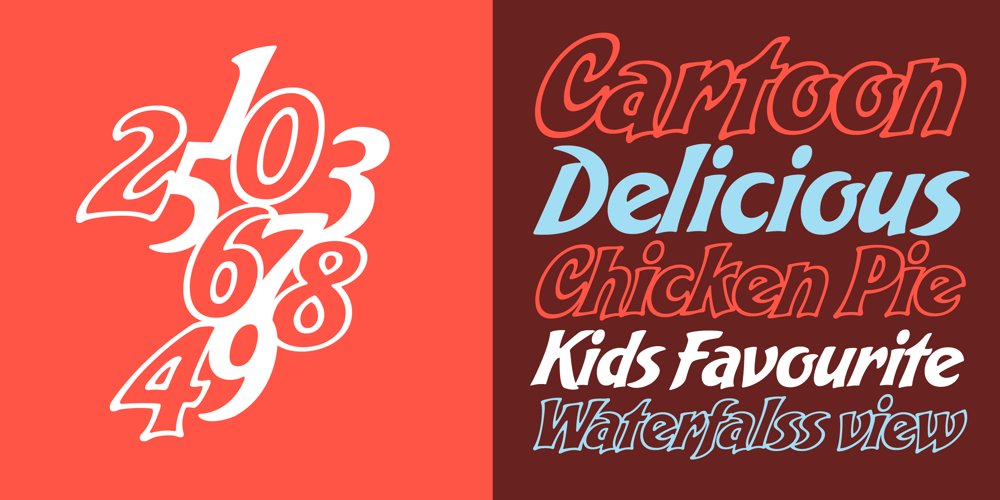
Bakery Script Font Family was designed by Alejandro Paul, Angel Koziupa and published by Sudtipos. Bakery Script contains 2 styles and family package options. Bakery Script is the Argentine duo’s nod to the high spirits of the 1970s. Angel Koziupa used his ever popular wild brush to draw the outline version, and Alejandro Paul refined it, expanded it, then extrapolated the solid version. While the outline version makes the letters seem like they’re growing out of each other’s shadows, the solid version presents a wilder version of the casual dancing letters Koziupa’s brush has entertained us with during recent years. Sharp in places, perfectly curved in others, and with many letter alternates and ligatures included within the fonts, Bakery Script would be at home in packaging design, outdoors and adventure literature, and everywhere a display design needs that sharp but friendly touch to reach its goal.